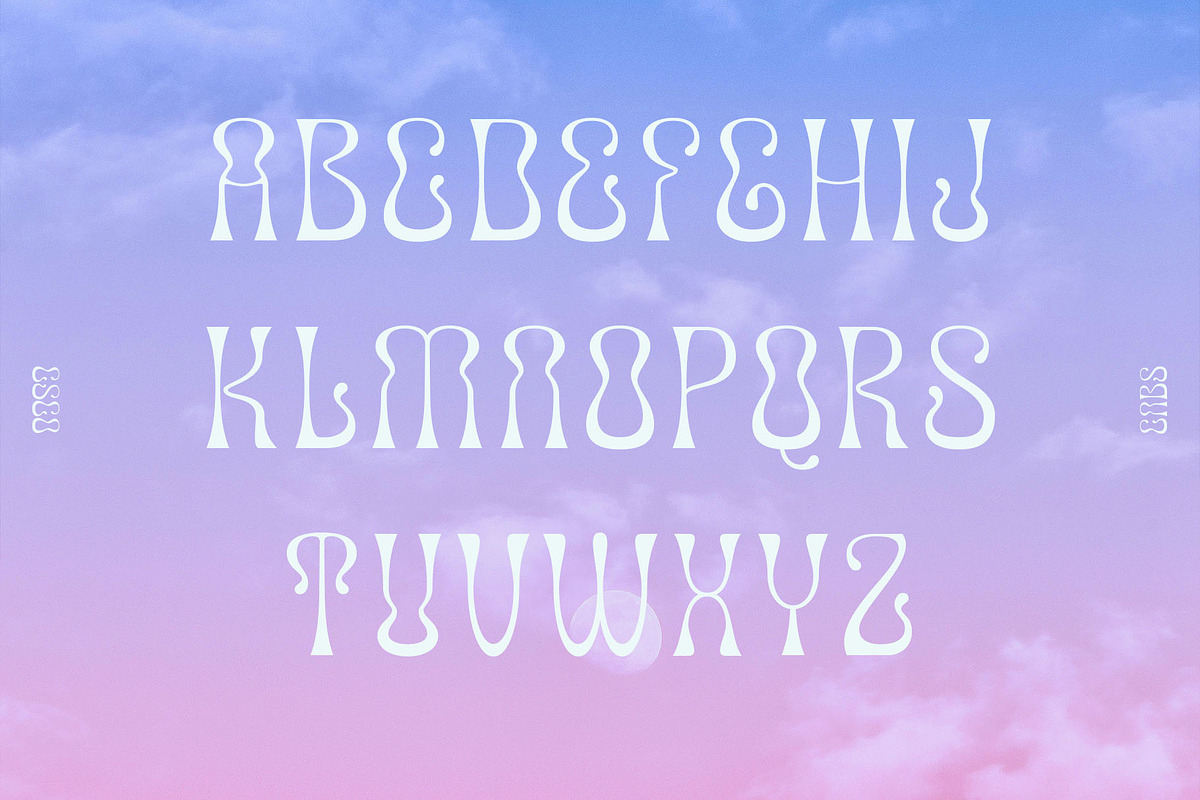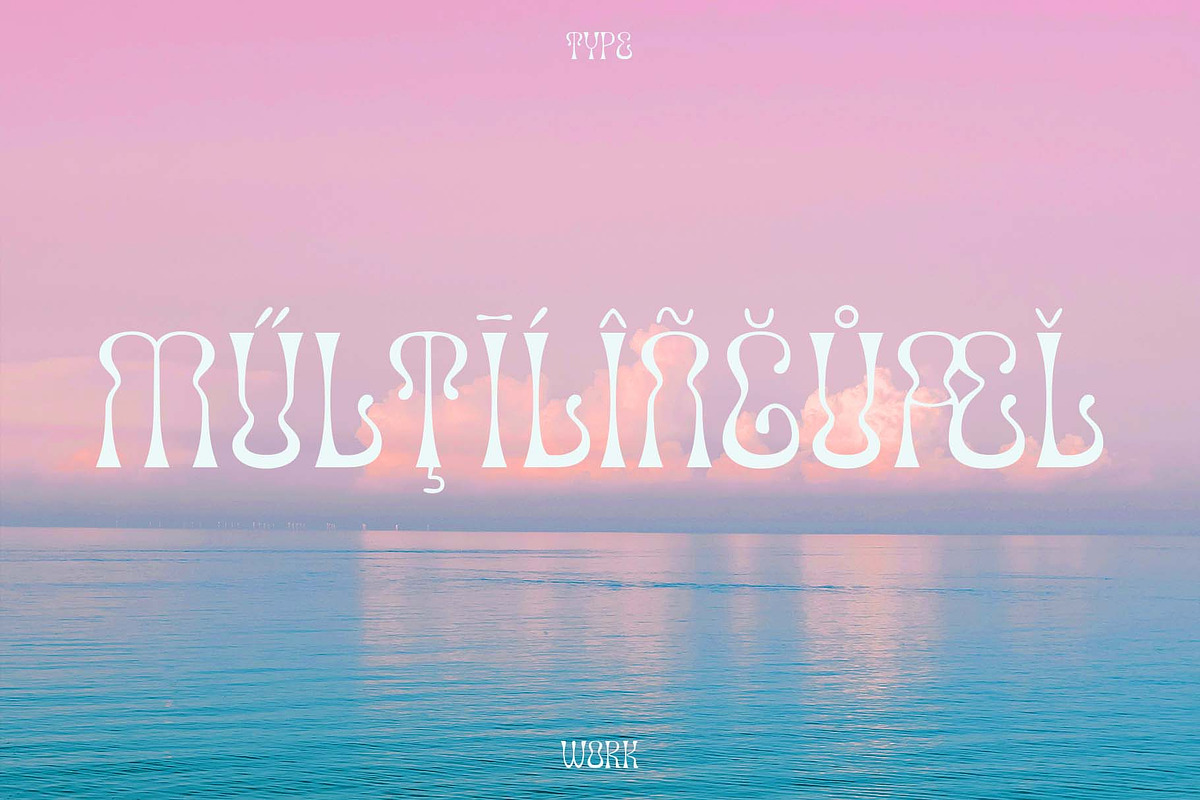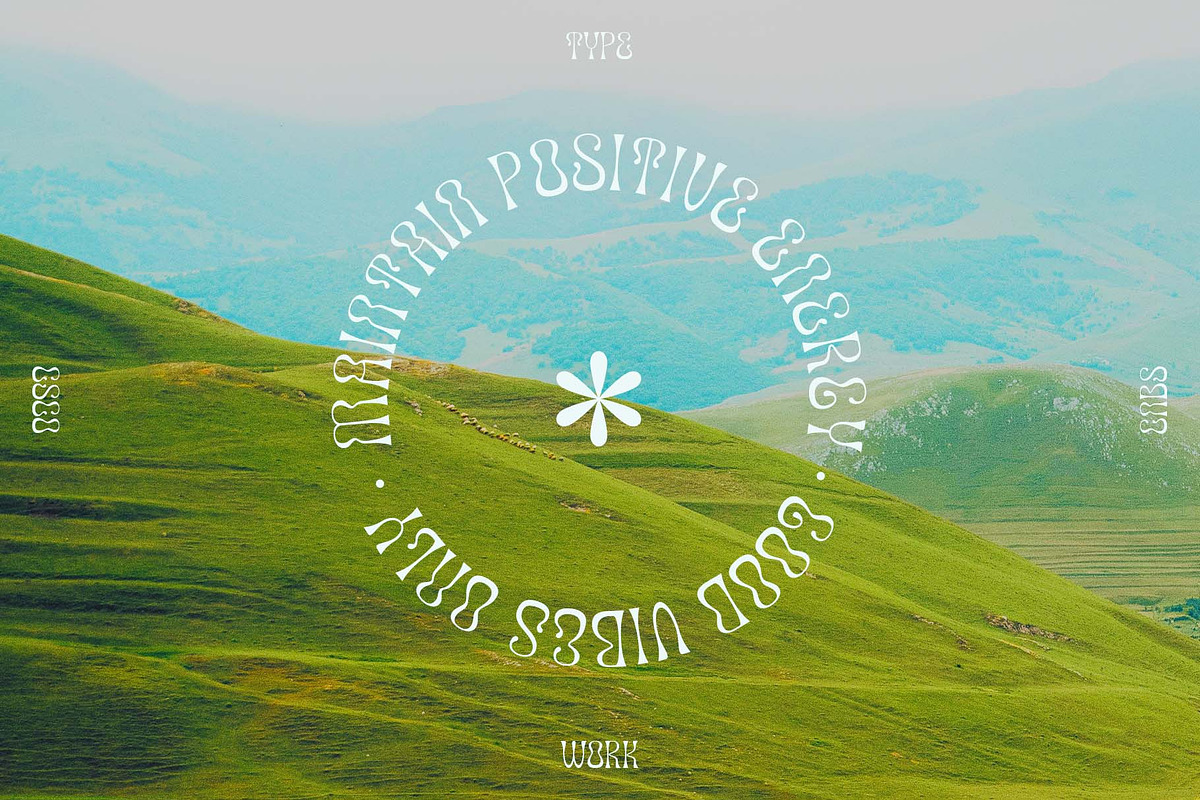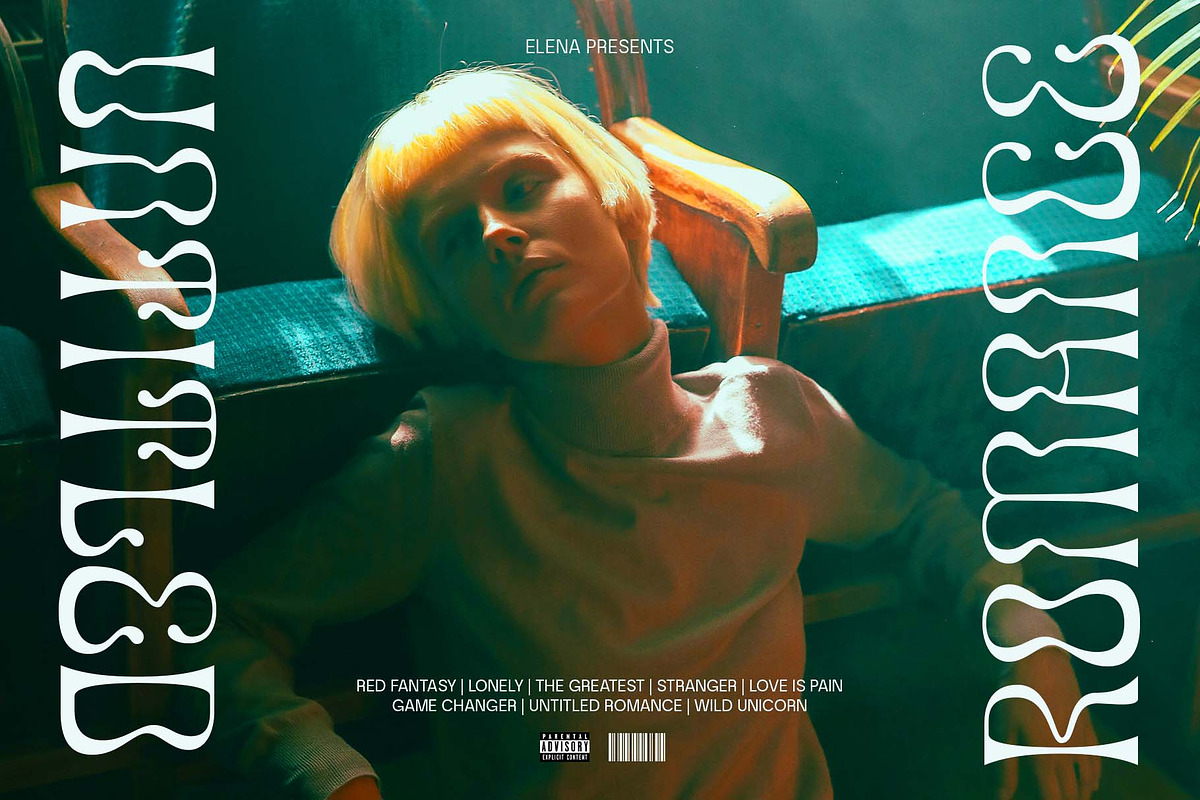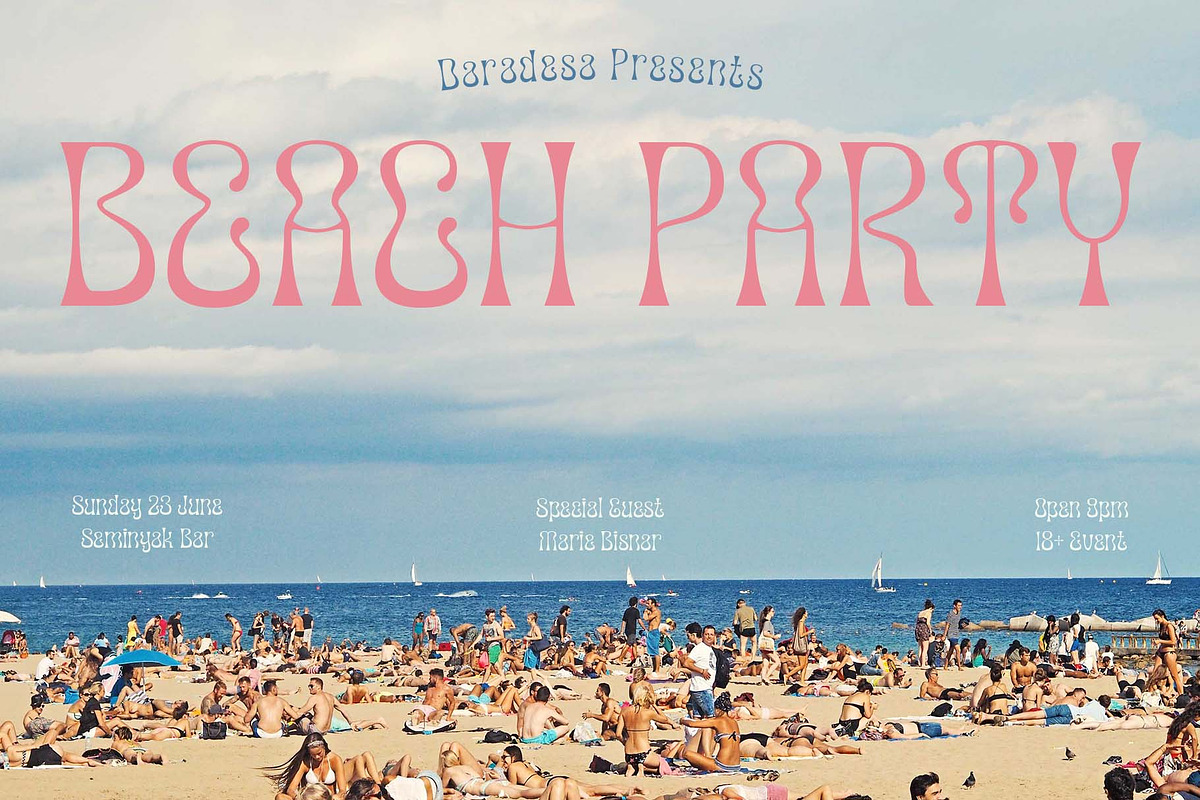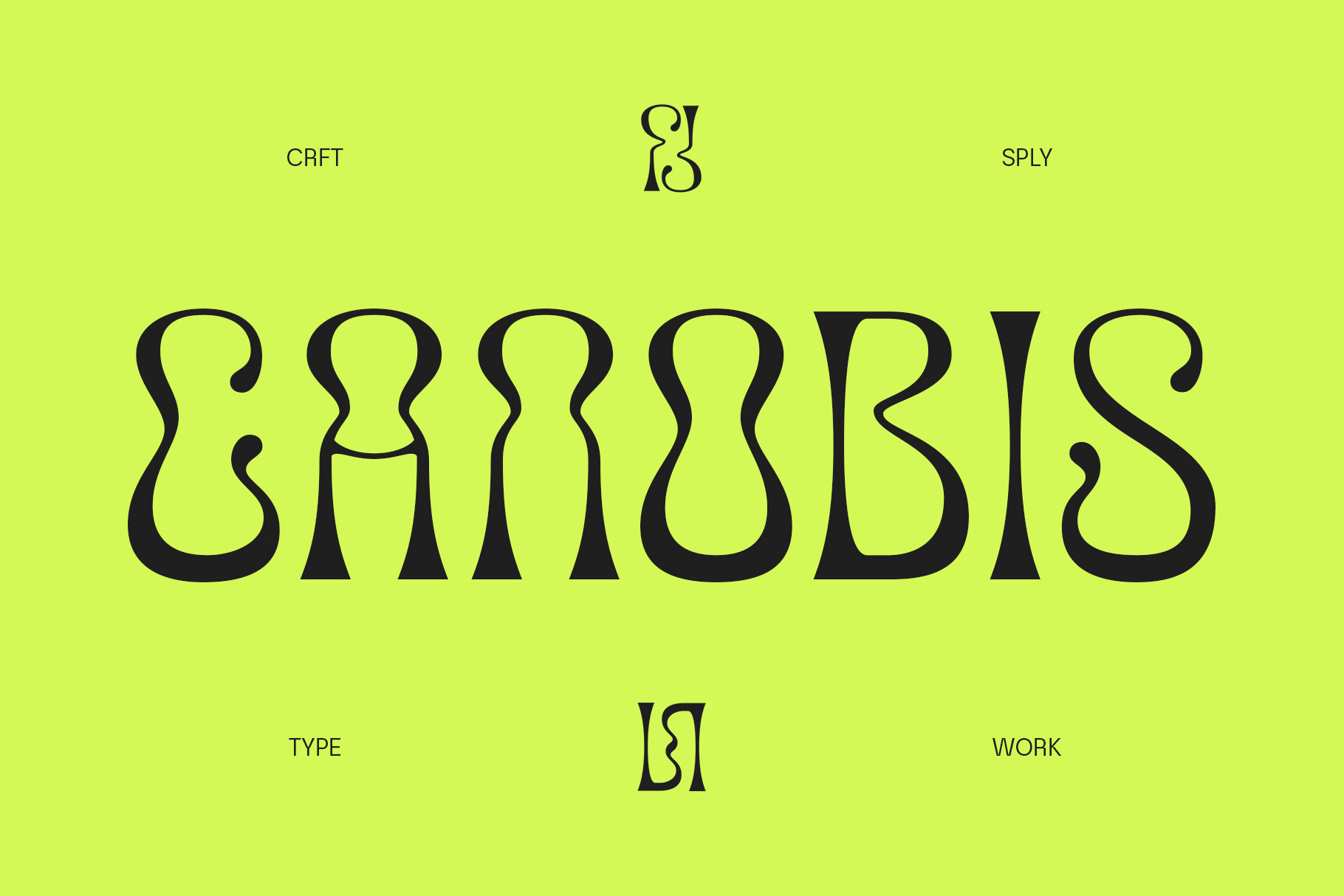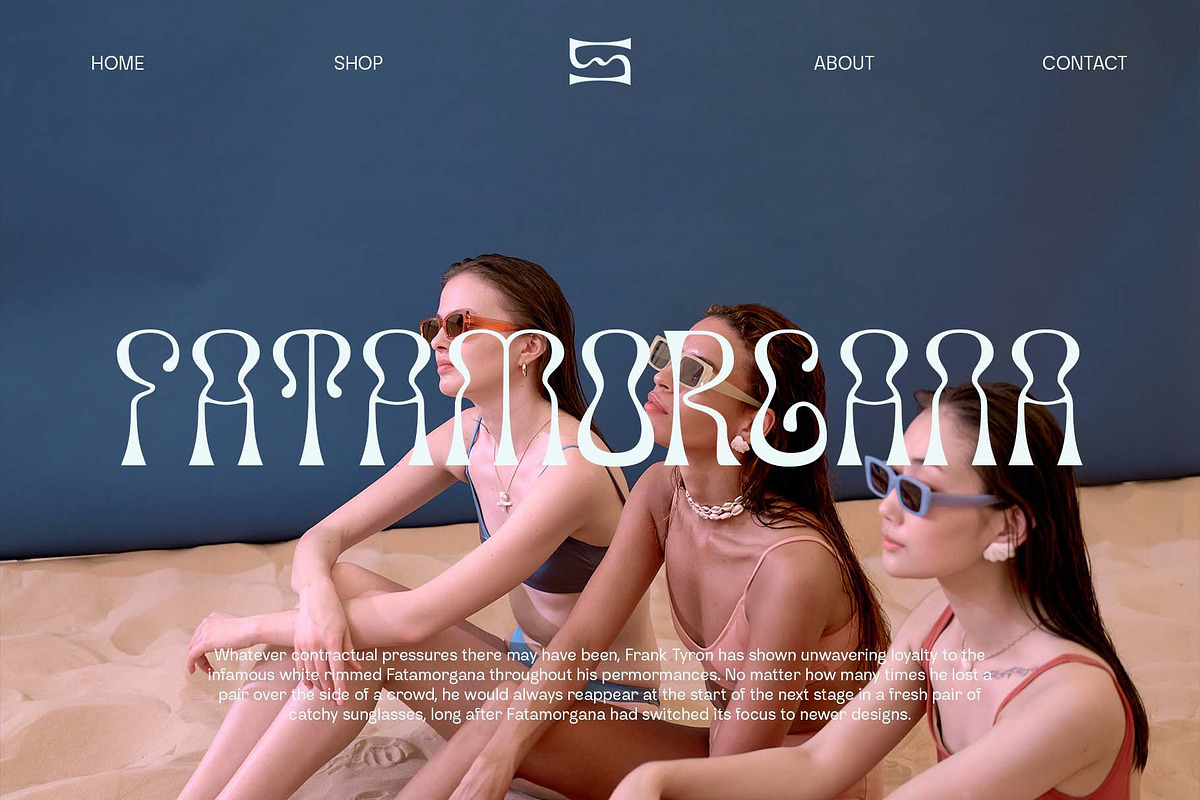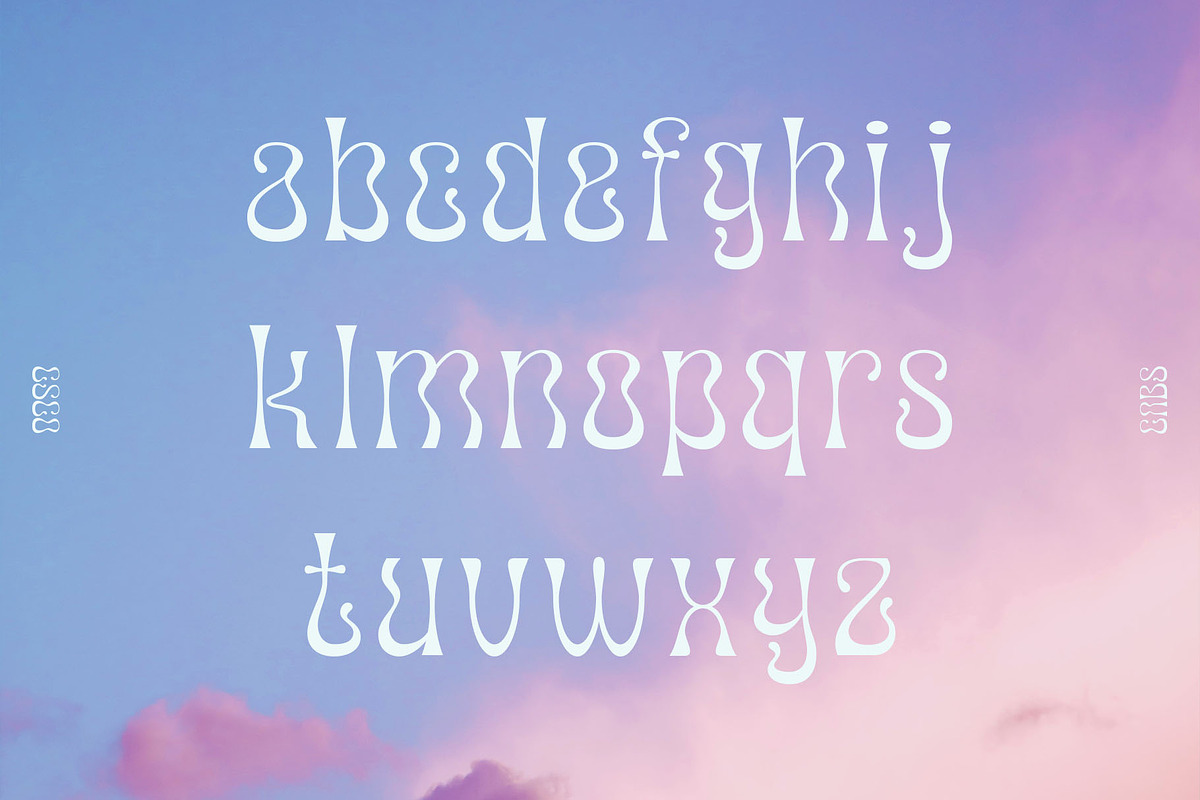
Canobis - Psychedelic Typeface
Introducing Canobis - Psychedelic Typeface.
Canobis is a psychedelic typeface with catchy flow that great to make your design vibing. It can be used to create almost all types of design projects like print materials. Just use your imagination and your project will become more alive and look great than ever with this typeface.
You want to make a greeting card or a package design, or even a brand identity, craft design, any DIY project, book title, wedding font, pop vintage design, retro design or any purpose to make your art / design project look pretty and trendy? Feel free to play with this typeface!